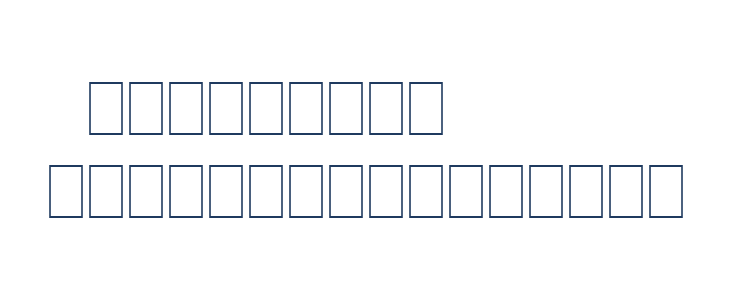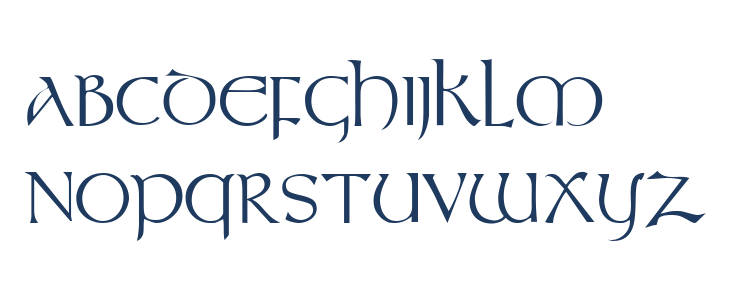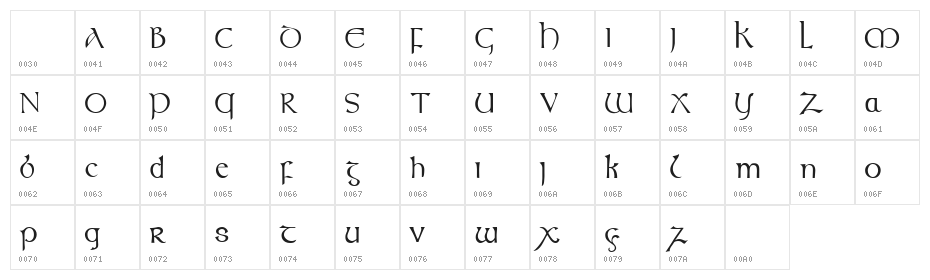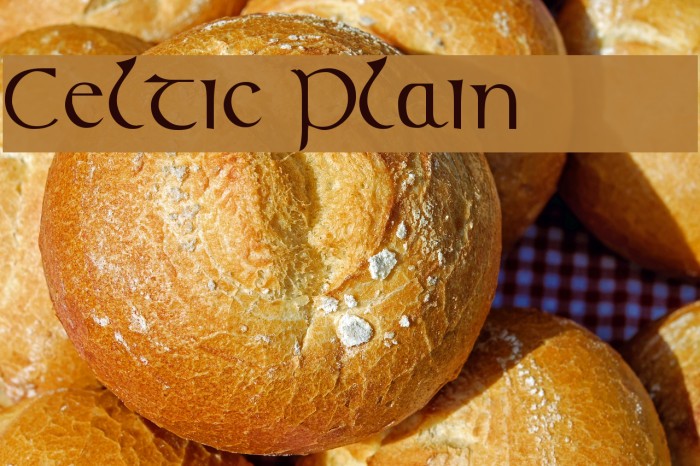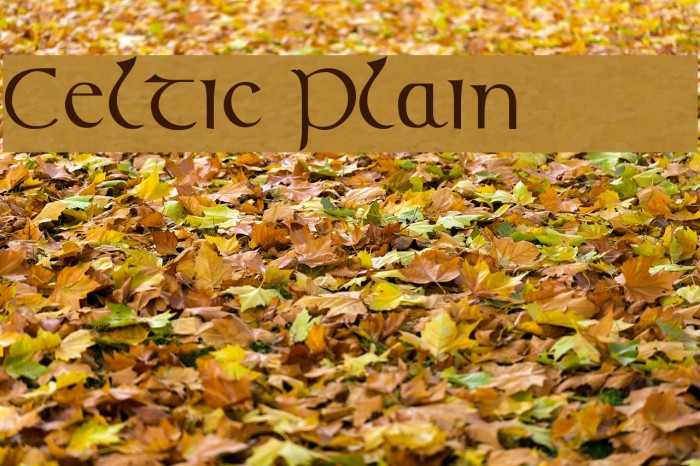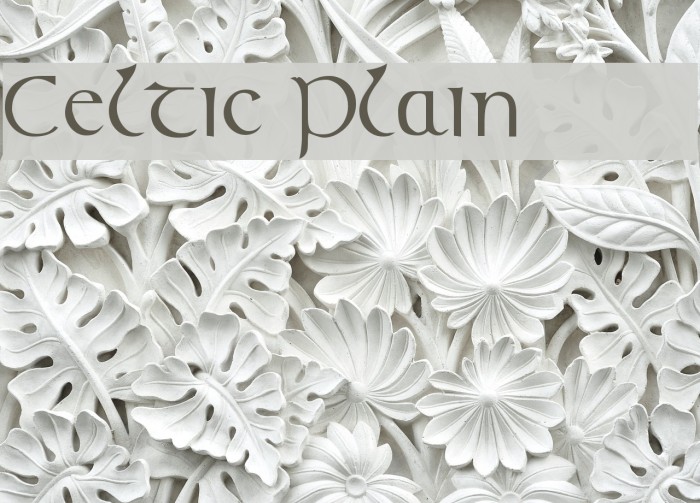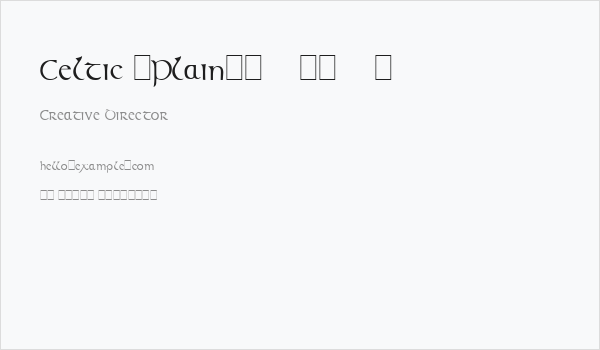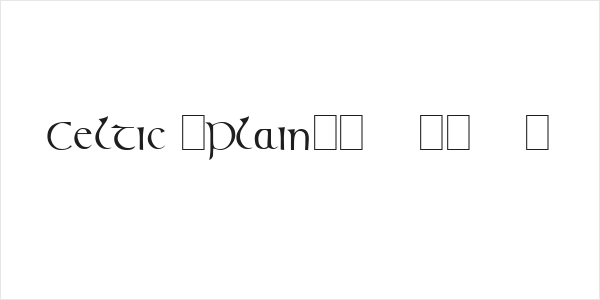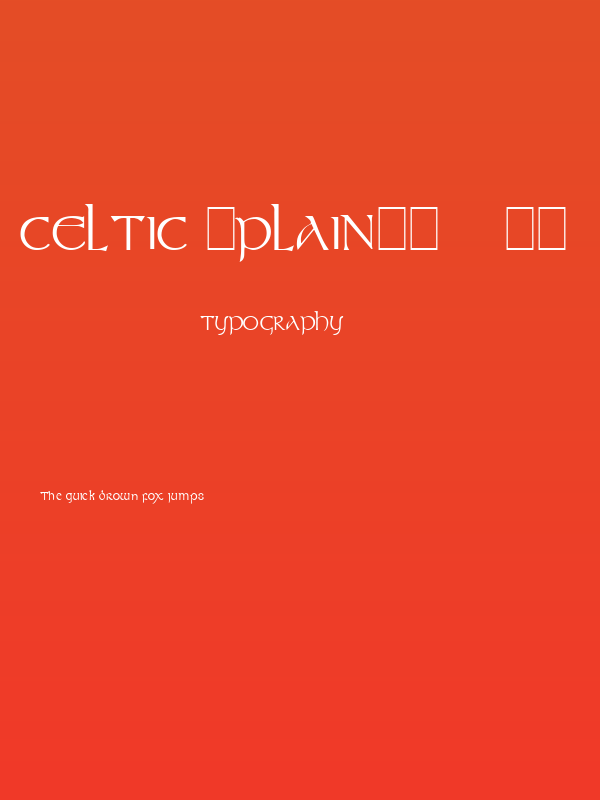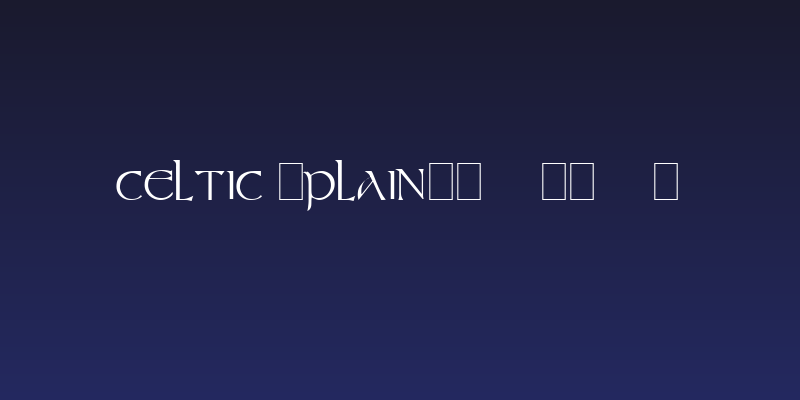
Celtic [Plain]:001.001 Font
Celtic [Plain]:001.001 Description
This font features a unique blend of traditional Celtic influences with modern design elements. The characters exhibit a distinct angularity and sharpness, reminiscent of ancient scripts, yet maintain a contemporary flair. The uppercase letters are particularly striking, with elongated strokes and intricate curves that add a sense of elegance and sophistication. The lowercase letters complement the uppercase with a slightly more subdued style, yet they retain the same intricate detailing. This font lacks numerals and special characters, focusing solely on the alphabet. The overall appearance is both bold and decorative, making it ideal for projects that require a touch of historical or cultural depth.
| Proposed Projects | Ideal for cultural or historical projects, book covers, posters, and branding that requires a touch of elegance and tradition. |